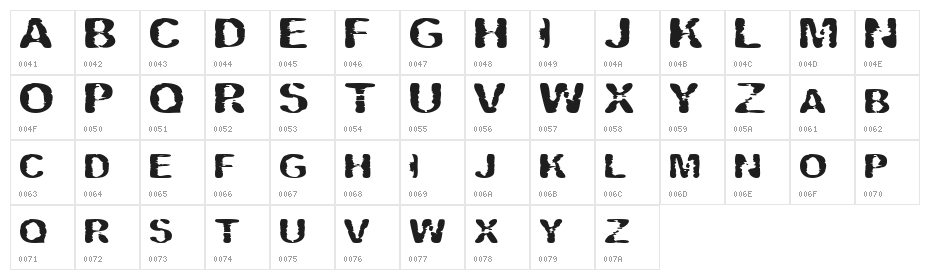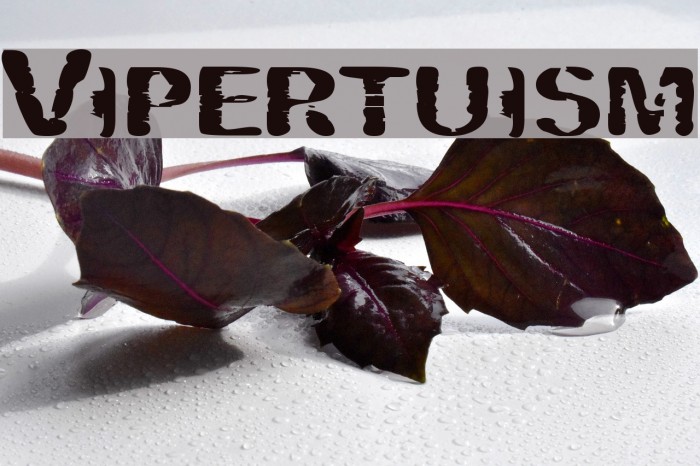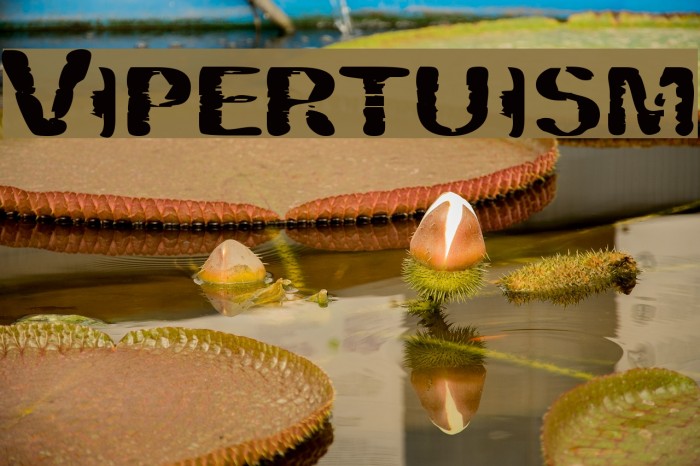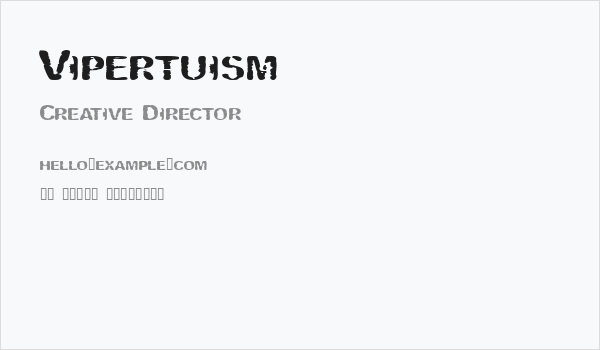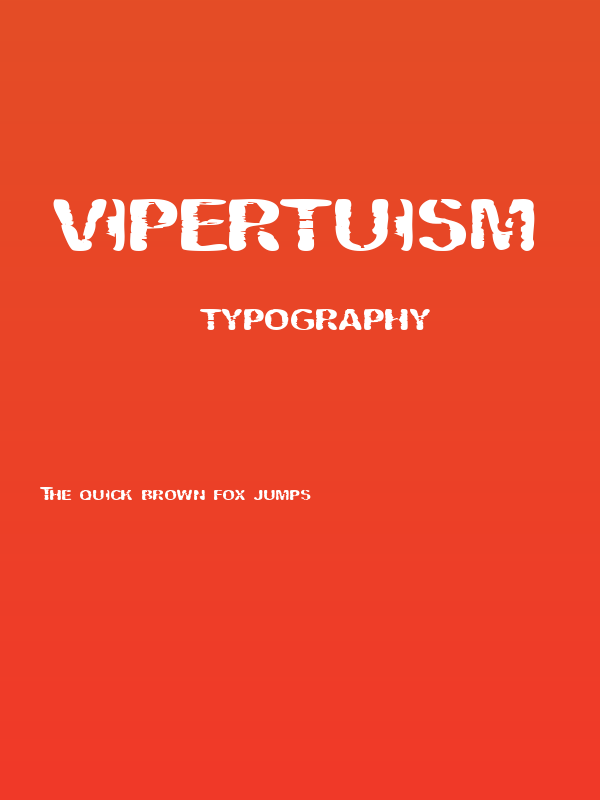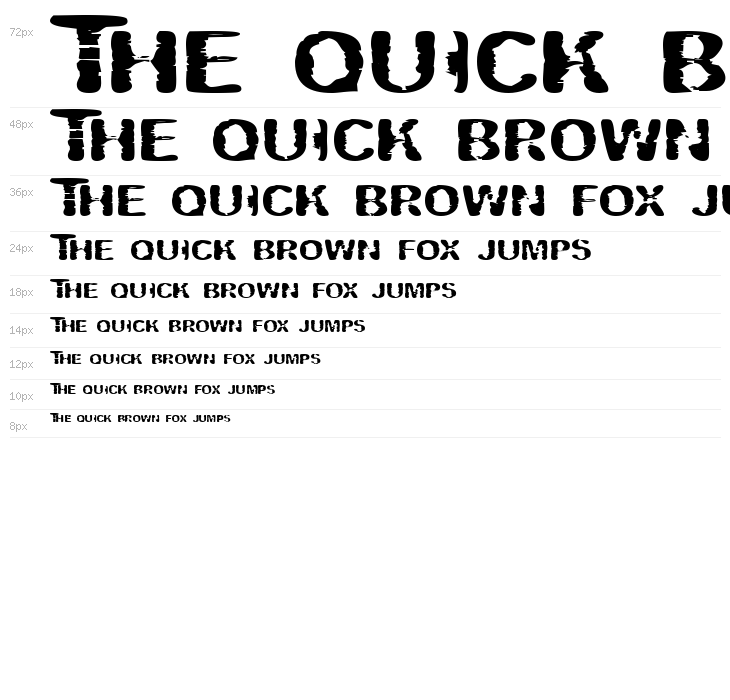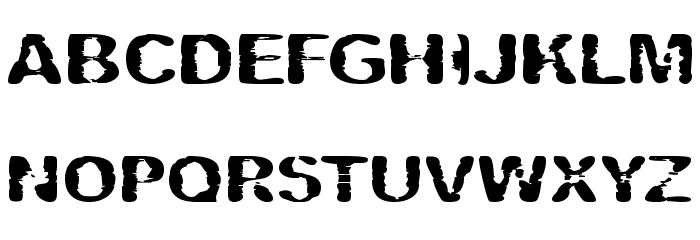
Vipertuism Font
Vipertuism Description
This font features a bold, distressed style with a rough, textured appearance. The characters have a unique, grunge-like effect, giving them an edgy and dynamic look. The uppercase letters are prominently displayed, with each character exhibiting irregularities and a worn-out texture that adds to its visual interest. The font's design is reminiscent of urban street art or vintage posters, making it ideal for projects that require a bold statement. The absence of lowercase letters and numbers suggests a focus on impactful, headline-style text. The overall aesthetic is both modern and retro, suitable for creative and artistic applications.
| Overall Style | Modern, Vintage |
| Proposed Projects | Ideal for posters, album covers, street art designs, and any project needing a bold, edgy look. |